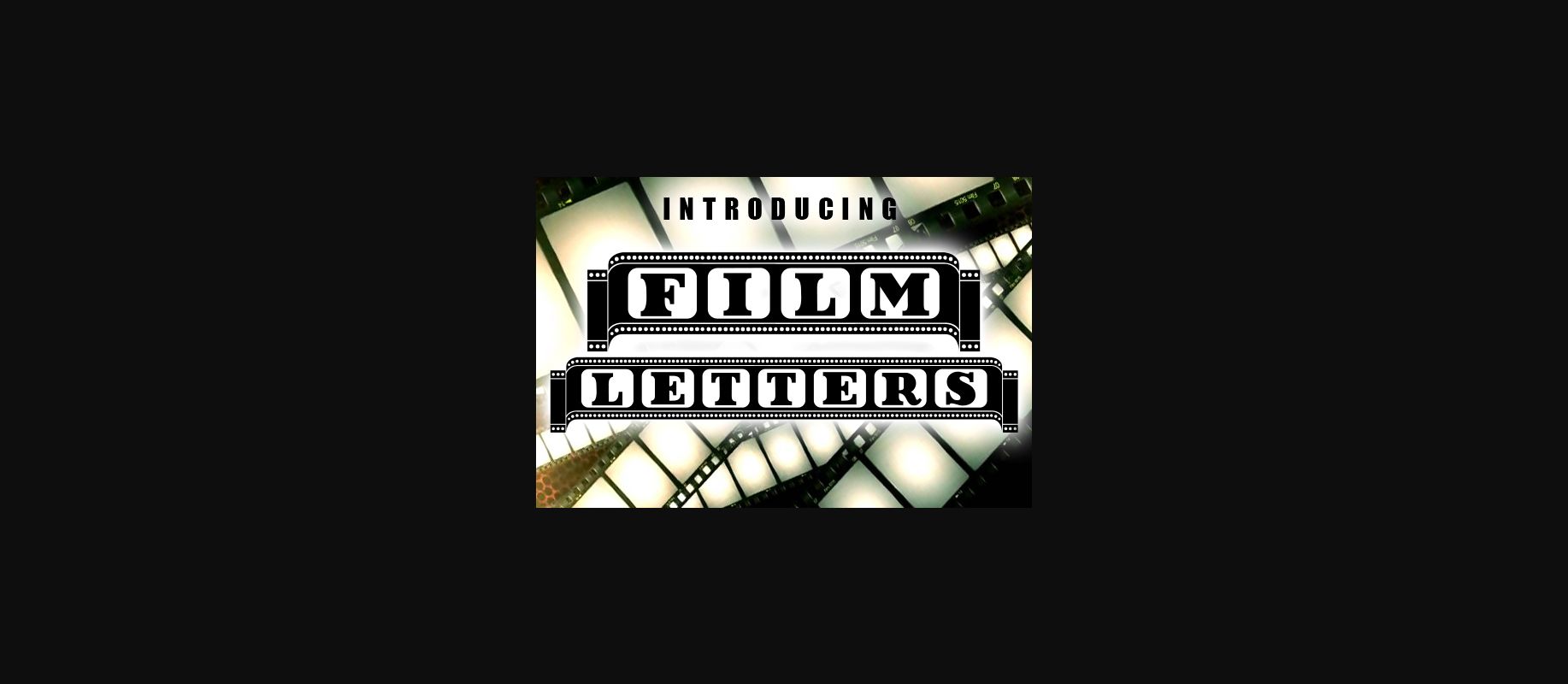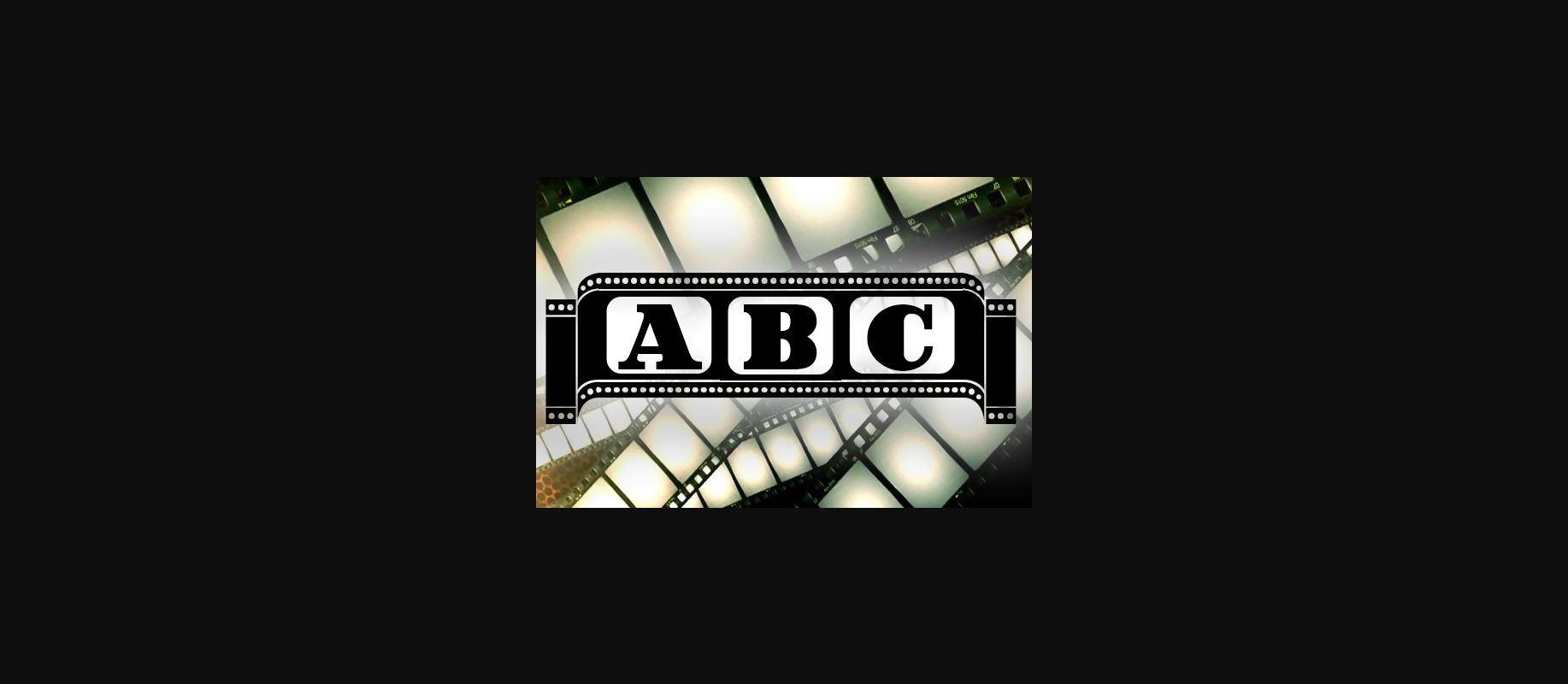
HomeDecorative FontsFilm Letters Font Decorative Fonts Film Letters Font FacebookTwitterPinterestWhatsApp 1 of 4 ... Film Letters Font Poster 2... Film Letters Font Poster 3... Film Letters Font Poster 4... About Film Letters Font Film Letters is an awesome decorative font done in old movie film style. It would look great on any poster, banner, or headline. DOWNLOAD NOW 166 0 People also explored PN Beacham Font Baby Chubby Font Aleonya Font Whippersnapper Font Madison Font Challenger Wilkinson Fentura Groovy Font Asterik Font Happy Autumn Font Cinderella Font Ceremony Font Mandala Signature Font TagsFilm Letters Font Previous articleHappy Birthday FontNext articleLamor Font LEAVE A REPLY Cancel reply Comment: Please enter your comment! Name:* Please enter your name here Email:* You have entered an incorrect email address! Please enter your email address here Website: Save my name, email, and website in this browser for the next time I comment. Unlock Endless Creativity with the FREE September Clipart Huge Bundle (Valued at $700!) Personal Use Free Soulties Personal Use Free Read more Po Beef Personal Use Free Read more Rolling Door Personal Use Free Read more Hillgates Personal Use Free Read more BLOG To increase your work productivity, choose the most readable fonts. In today's fast-paced work environment, where digital communication and information consumption are integral to our daily routines, the choice of fonts can significantly impact... Free Fonts Risk: Why Free Fonts Can Be Dangerous for Designers Top 7 Google Fonts Alternatives for Faster and Privacy-Friendly Web Design (2025) Where to Buy American Fonts Online in 2024